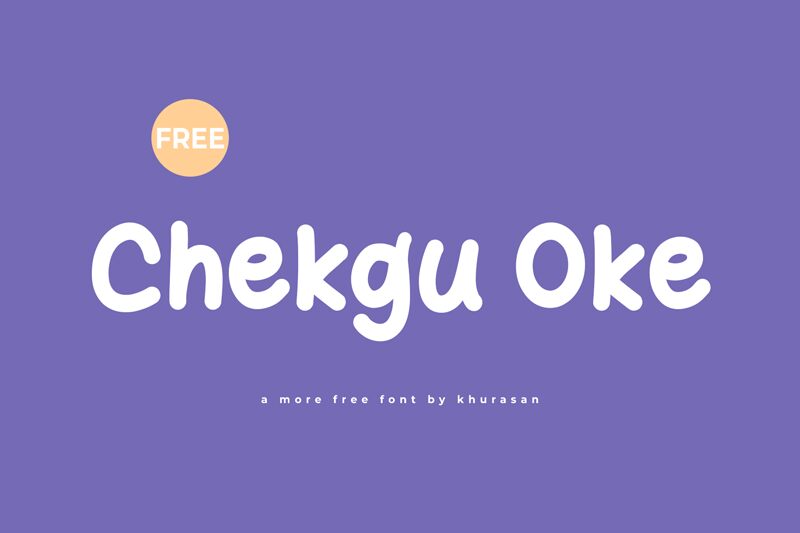
Chekgu Oke
Chekgu Oke leaps off the page with its playful cartoon style, a testament to Khurasan's creative expertise in display fonts. Its characters dance with a lively personality, each letter crafted to evoke a sense of fun and whimsy. The bold strokes and rounded contours contribute to a friendly and approachable aesthetic that feels both fresh and familiar.
This font's cheerful demeanor makes it ideally suited for projects targeting younger audiences or designs that aim to inject humor and lightheartedness. From children's book titles to animated movie posters, Chekgu Oke is poised to bring energy and joy wherever it appears.